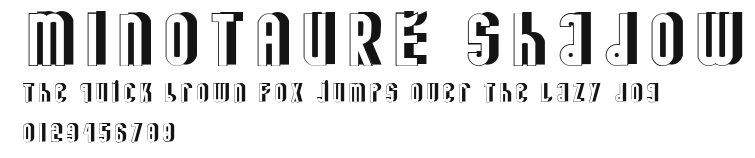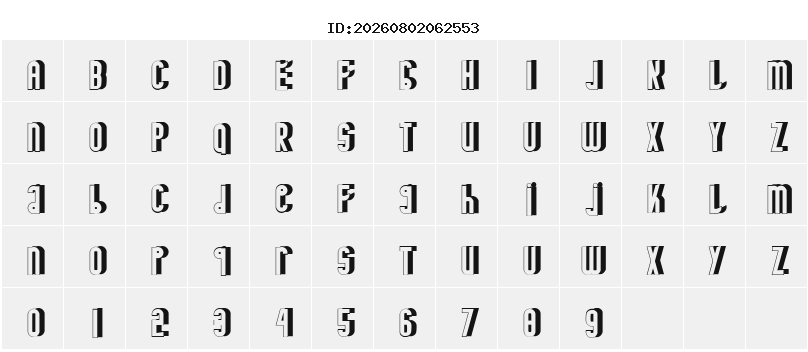
• Font Name: MINOTAURE shadow
• Full Font Name: MINOTAURE shadow
• Designer: paintblack
• Manufacturer: paintblack
About MINOTAURE shadow.ttf
MINOTAURE shadow.ttf is a modern, elegant sans-serif font designed for ultimate readability and visual harmony. Perfect for branding, headlines, web design, and print materials.